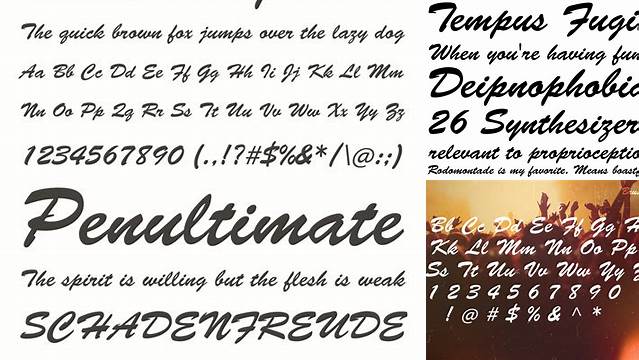
Brush Script Std is a timeless and elegant typeface that has graced countless designs, from wedding invitations to movie posters. In this comprehensive guide, we'll dive deep into the world of Brush Script Std, providing you with everything you need to know about this beloved font, including how to snag a Brush Script Std free download and utilize it effectively in your creative projects.
Brush Script Std: Unveiling the Charm of a Classic Font
Brush Script Std, with its flowing strokes and casual elegance, instantly adds a touch of sophistication and personality to any design. Its handwritten style evokes a sense of warmth and approachability, making it a popular choice for a wide range of applications. Whether you're crafting a logo, designing a website, or creating marketing materials, Brush Script Std can help you make a lasting impression. The beauty of Brush Script Std lies in its versatility. It can be used in a variety of settings, from formal to informal, and it always manages to look stylish and inviting. Its smooth curves and dynamic letterforms create a sense of movement and energy, making it perfect for capturing attention. In order to harness the full potential of this fantastic font, it is essential to have a solid understanding of its features. Brush Script Std is known for its legibility and readability, which is a very important factor when it comes to using the font for designs. When choosing a font, always consider factors like legibility. The design is very important, but the most important thing is readability. Ensure the design is perfect for the user to consume the information. This font is a good choice, especially when the design calls for a balance of style and usability. For example, it's great for headings, quotes, and short text blocks where you want to convey a sense of personality and flair. However, it's not the best choice for extensive body text, because it can get a little difficult to read in larger blocks.
Brush Script Std is a font that has been around for a while, and it's a real classic. It has been a popular choice for designers and creators for decades, and that's a testament to its enduring appeal. It's a font that can really help you create a strong brand identity. With its unique character and personality, the font is a good choice if you want to make your brand stand out from the crowd. It's been used in a lot of different projects, from logos and websites to packaging and print materials. When used in a smart way, you can use Brush Script Std to create an amazing design. It's all about finding the right balance and applying the font in a way that complements your overall design goals. If you're thinking about using Brush Script Std, consider its history. It was designed and created to look like handwriting, so it carries a sense of artistry and a human touch. This makes it perfect for projects that are all about being relatable and authentic. When used correctly, Brush Script Std can be a secret weapon in your design arsenal. When you choose Brush Script Std, you're choosing a font that will stand out. Make sure you use it in a way that is appropriate and fitting.